TypeTalk: Top Fonts of 2008
Q. What typefaces have been hot recently?
A. The past year was a great one for type, with the release of many exciting new typefaces, and the expansion of some tried and true favorites.
Here are links to some of the biggest and best lists of what was hot in 2008, fontifically speaking. They represent a wide range of styles and come from an even broader array of type designers, foundries, and font resellers.
MyFonts
The MyFonts listing of their Top 10 Fonts of 2008 is a great place to start. It showcases the entries in large, illustrative, appealing settings, and includes descriptive copy beneath it. Lots of cool stuff here, including scripts, dingbats, and even monograms.
Veer
Veer’s Faces of the Year: Top 10 Type Stories may not be their best sellers, but they’re certainly designs worth your notice. The big, juicy type samples with economical descriptive copy below them are inviting and exciting.
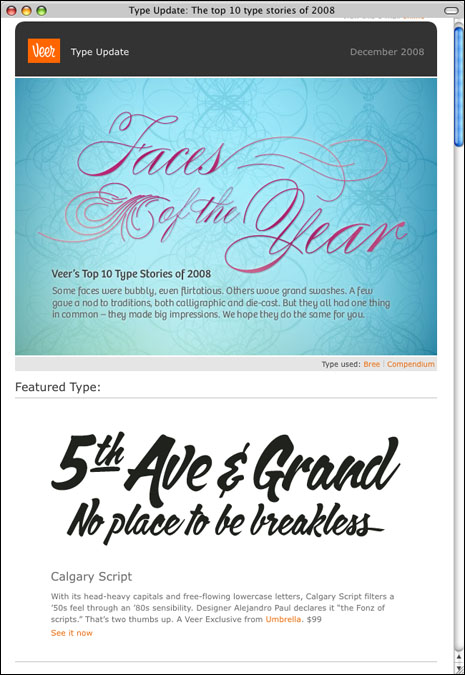
Ilovetypography.com
While ilovetypograpy.com doesn’t sell fonts, its list of Favourite Typefaces of 2008 is definitely worth a visit if you want to broaden your typographic horizons. The list includes designs from a broad range of foundries, including obscure international designers who are doing exciting work.
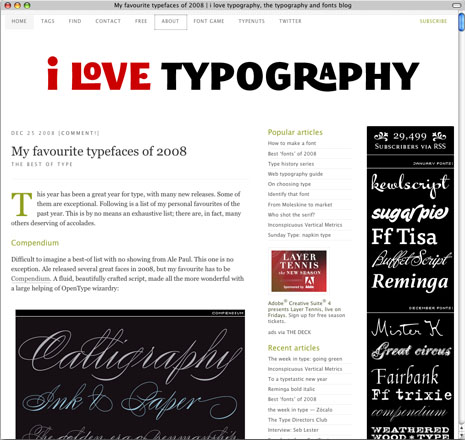
FontShop
FontShop’s 20 Typefaces of 2008 is a clever listing of a number of self-awarded categories, included Best No-nonsense Headliner, Sublime schizophrenia, and Most Unconventionally Curvacious. Very original, informative, and entertaining.
FontHaus
This Top 30 Best Selling Fonts of 2008 listing from FontHaus has oldies but goodies and predictable favorites, but there are also more unexpected designs. Check it out!
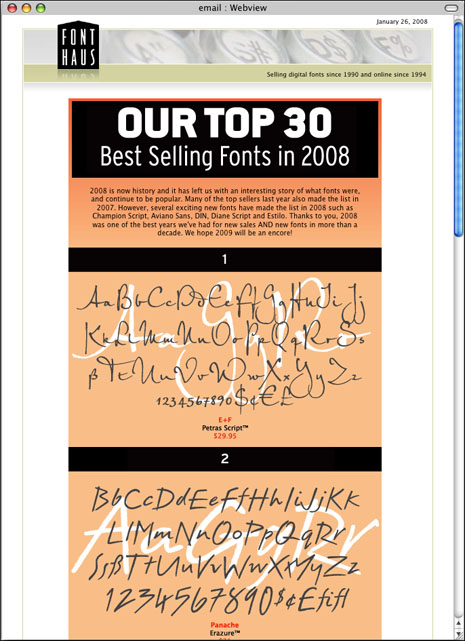
Fonts.com
You can see Fonts.com’s 25 Best Sellers by clicking a tab on the home page, which brings up clickable spot images for each font that take you to more tabs, which in turn access Sample, About This Font, Try Font, Waterfall, Character Map, and Technical Details. It’s a nice sampling of mostly text families.